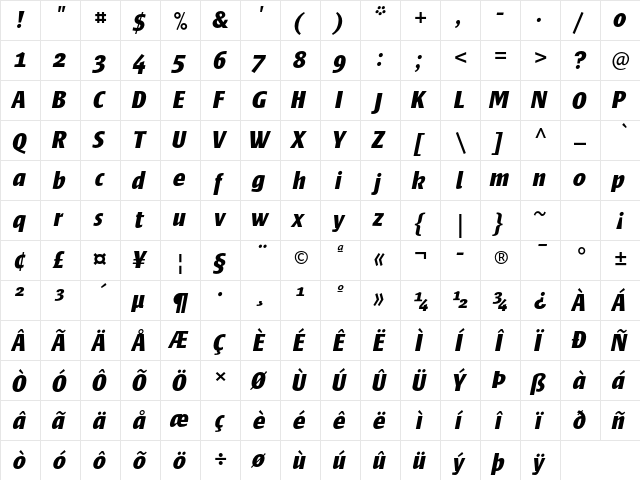
Frisans Std Bold Italic Font Preview
| Designer | Bo Berndal |
Design Context for Frisans Std Typeface
Frisans Std offers clean, dependable letterforms without strong stylistic allegiance, making it a practical choice for designers who need flexibility. Its italic angle brings a sense of urgency and motion to the letterforms. The heavy weight commands attention and anchors typographic hierarchies.
Pro Tip: Try Frisans Std for annotation and caption copy alongside an upright companion — the contrast in angle creates a dynamic but ordered typographic system.